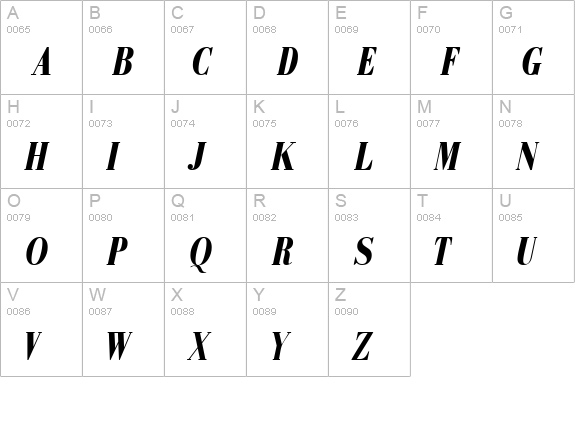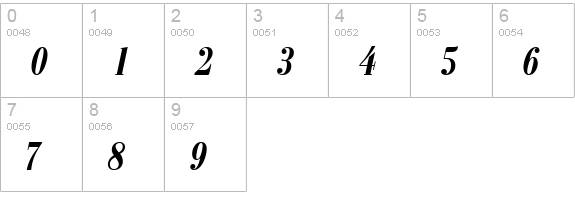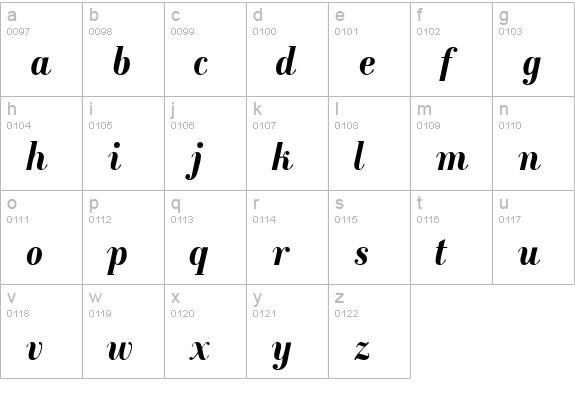
RecitalSSK BoldItalic Font Details
RecitalSSK BoldItalic font is a striking and elegant typeface that exudes confidence and sophistication. With its bold and italicized design, this font captures attention and adds a touch of drama to any project. Perfect for creating eye-catching headlines, logos, and branding materials, RecitalSSK BoldItalic font commands attention and makes a lasting impression. Its unique blend of boldness and elegance makes it a versatile choice for a wide range of design applications. One of the most remarkable aspects of RecitalSSK BoldItalic font is that it is available for free. Yes, you read that right! This stunning font can be freely downloaded at FontsMarket.com, making it accessible to designers and creatives worldwide. Whether you're working on a personal project or a professional endeavor, RecitalSSK BoldItalic font is sure to elevate your designs to new heights. Its distinctive style and bold presence will captivate your audience and leave a lasting impact. So why wait? Unlock the potential of your designs with RecitalSSK BoldItalic font, freely available for download at FontsMarket.com. Give your projects the edge they deserve and let this remarkable font take center stage.